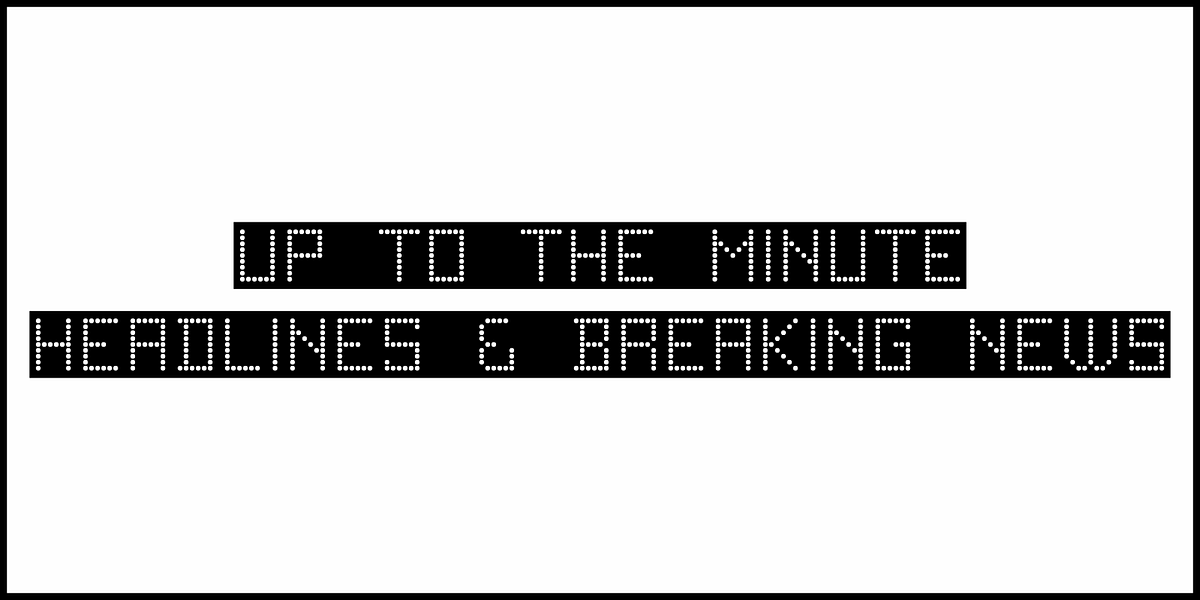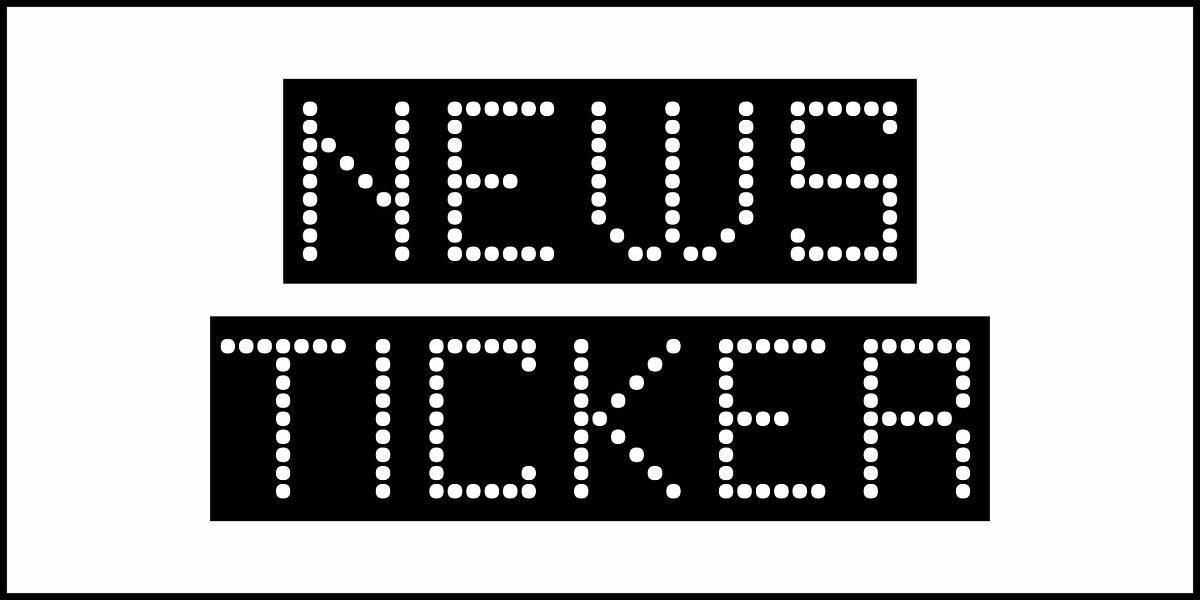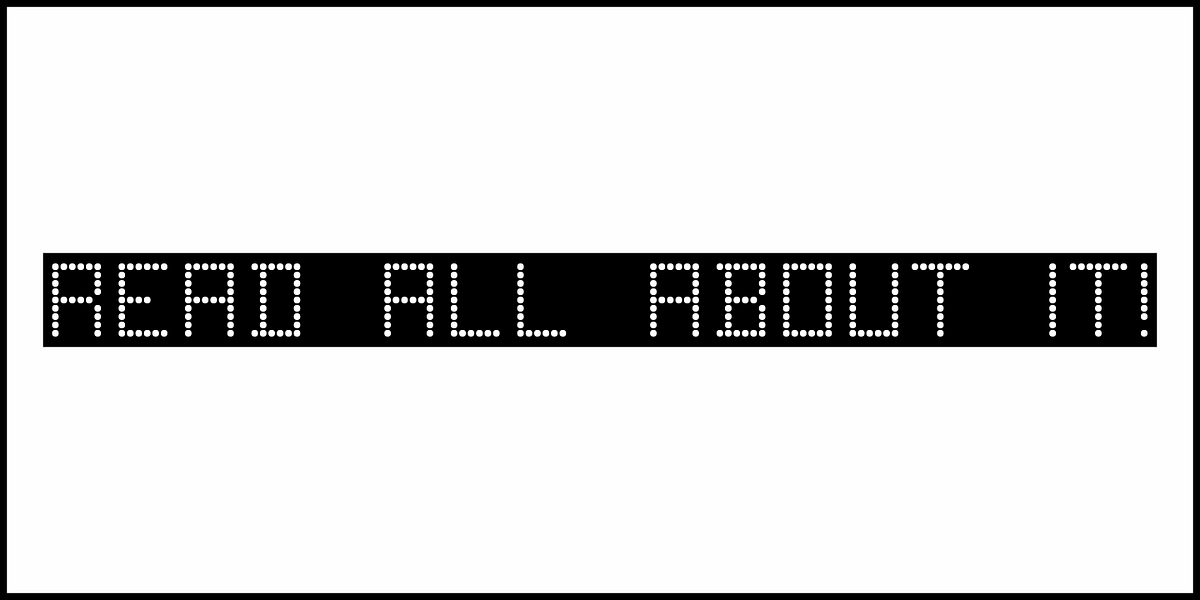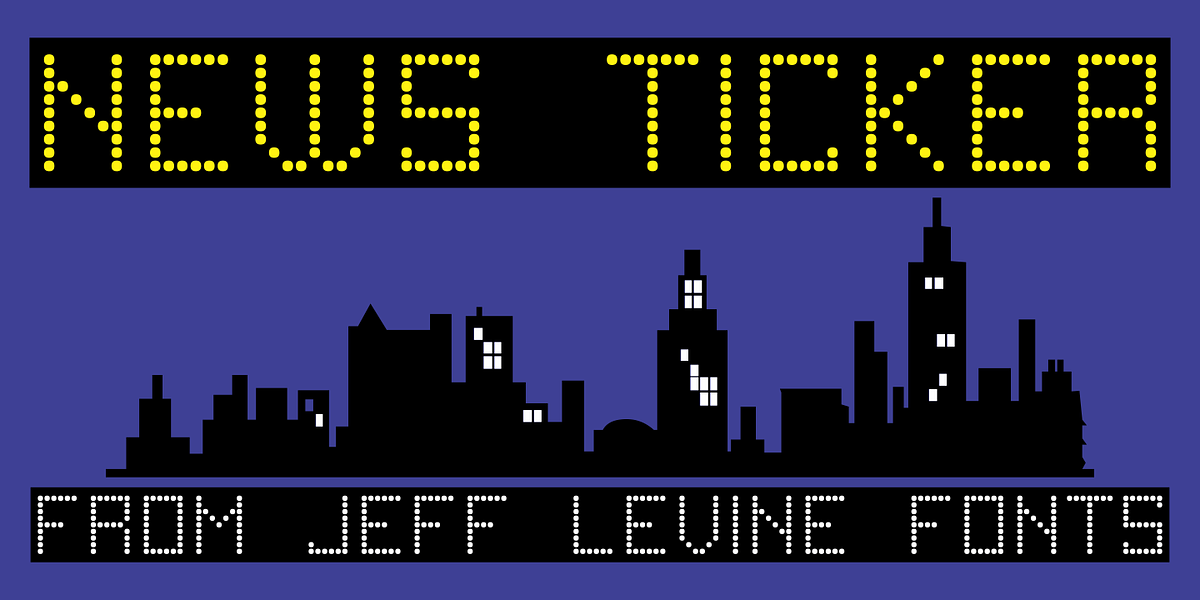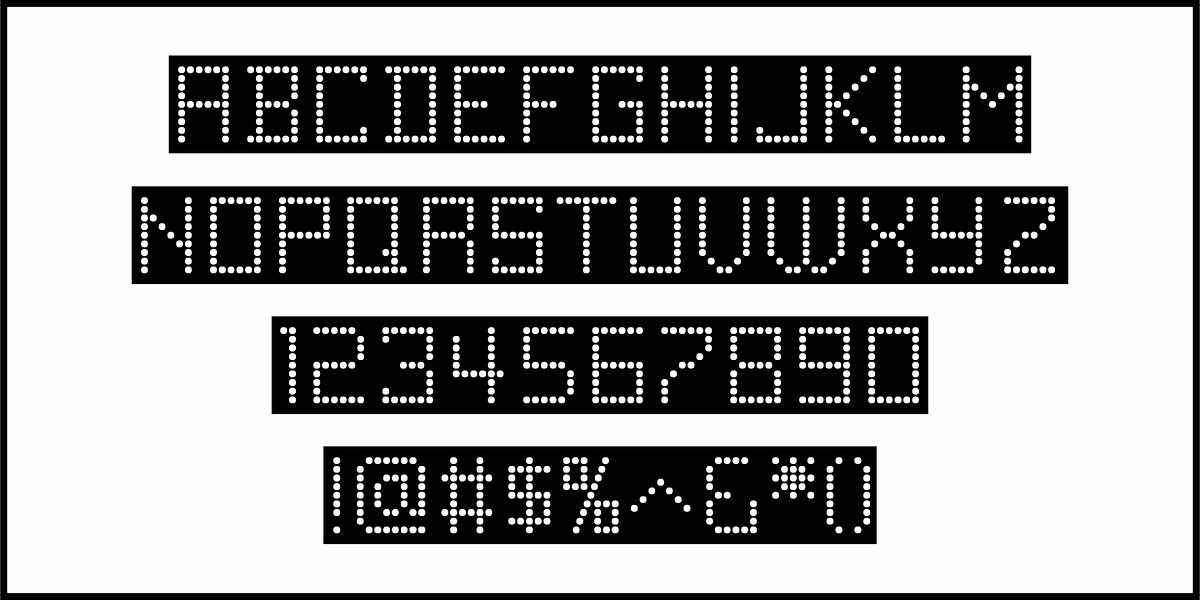
News Ticker JNL
News Ticker JNL was inspired by some 1930s film footage of the famous electronic message sign that surrounded the New York Times building in Times Square.
A blank panel is located on both the regular and broken vertical bars for use in spacing between words.